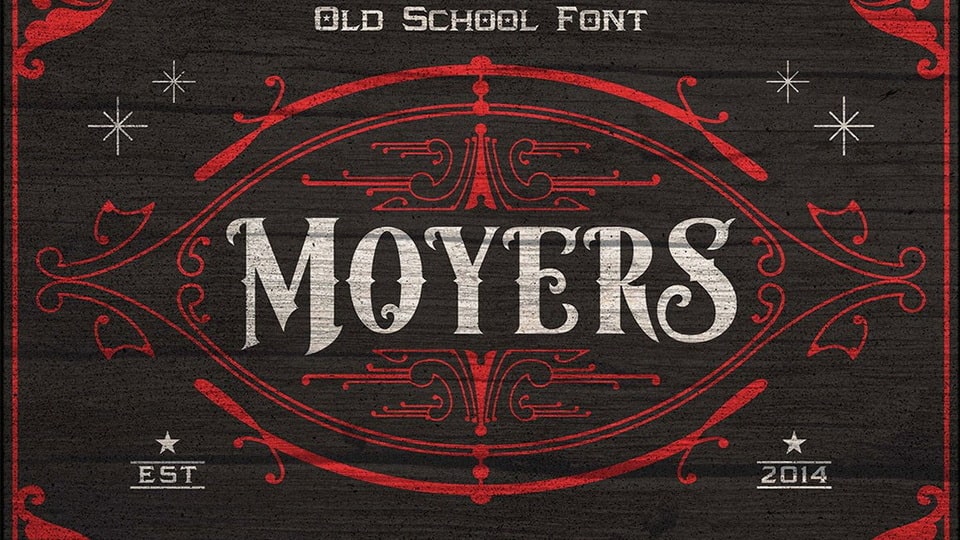
Jan 30, 2025DisplayMoyers Font Moyers is a blackletter font that looks vintage, old-fashioned, and elegant. This font is good for vintage designs, displays, t-shirts, logos, labels, posters, etc. Font DetailsDesigned by: Areatype StudioWebsiteLicense: Free for personal use Download Moyers FontFile size: 65.59 KBCreated: February 16, 2025Updated: February 16, 2025 Download Explore similar fonts Flowserif Font Artistic Writing Font Brindley Houston Font Evermont Font Dream Theatrion Font ST-Surzhik Font # Decorative# Elegant# Fancy# Retro# Tattoo# Vintage More fonts by Areatype StudioSheraton Script FontFlower Rose FontAdediala Script FontSalbatora FontHottemp Brush FontDarling Harbour FontAima Font DuoAgustine Script Font